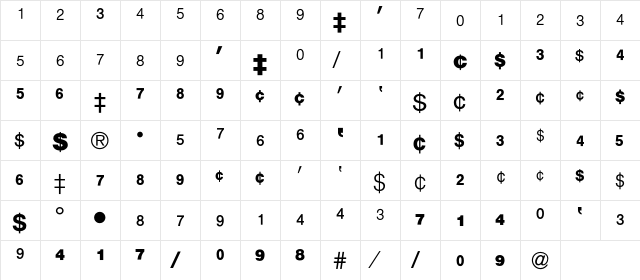
Helvetica Fractions BQ Regular
Design Context for Helvetica Fractions BQ Typeface
Helvetica Fractions BQ offers clean, dependable letterforms without strong stylistic allegiance, making it a practical choice for designers who need flexibility.